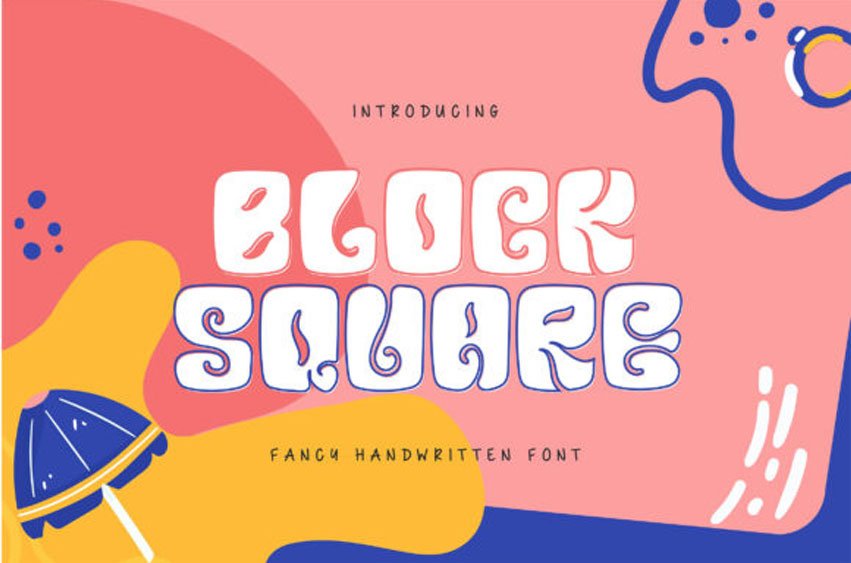
Block Square Font is a stylish and whimsical display font. This font is PUA encoded which means you can access all of the glyphs and swashes with ease!
Add this chunky lettered font to your designs and notice how it makes them come alive!